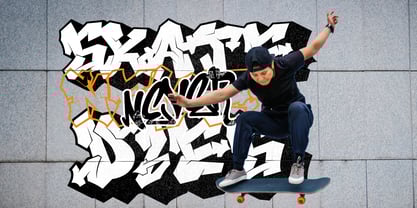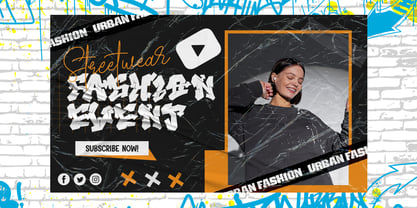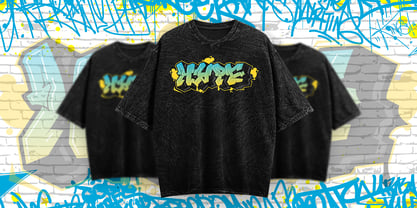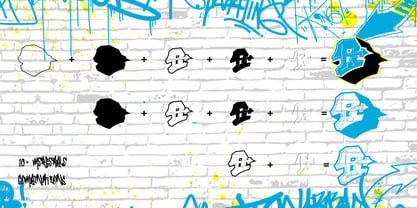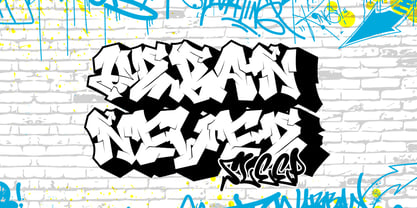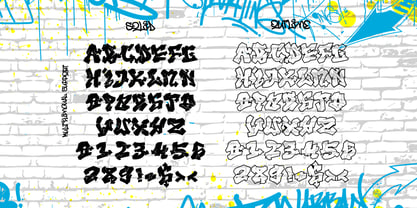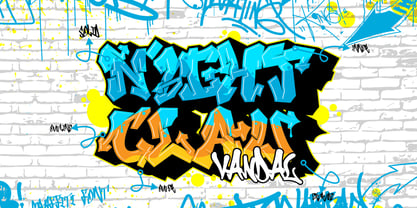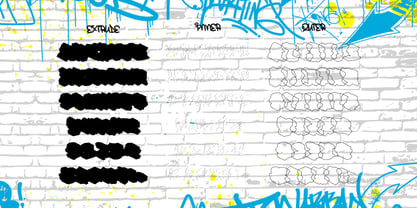
Nightclaw Vandal Outer
by Sipanji21
The Nightclaw Vandal Outer Font Family was designed by Sipanji and published by Sipanji21. Nightclaw Vandal Outer contains 5 styles and family package options.
Outlined
Hollow
Nightclaw Vandal is a powerful wild-style graffiti font with a bold and rebellious personality. Designed in a 3D layered format, this typeface includes 5 stackable styles—Solid, Outline, Outer, Inner, and Extrude—that let you build eye-catching graffiti typography with depth and detail. Each character is uniquely decorated with arrows and sign-like accents to reflect the raw energy of street art. Perfect for urban merchandise, streetwear branding, sticker packs, hip-hop posters, and digital collages. Let your typography scream style with Nightclaw Vandal.